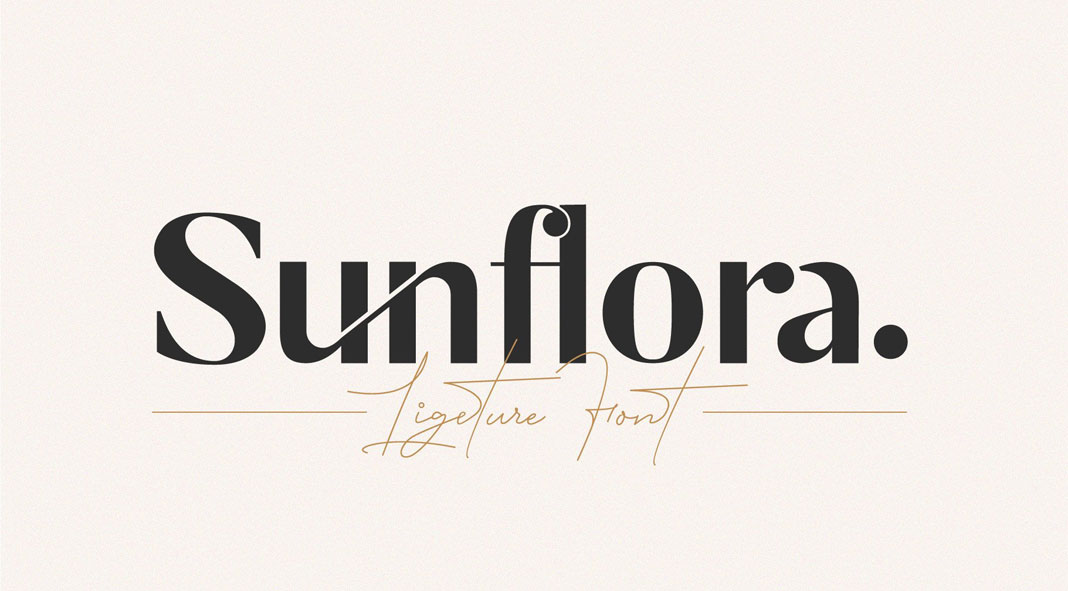
Sunflora, an elegant font that uses unique ligatures to smoothly link letters.
Oh boy, just look at this beauty! Designed and published in 2019 by New Tropical Design Studio, the Sunflora font is the right choice for logotypes, monograms, quotes, eye-catching titles, and many more typographic applications. Thanks to its 20 unique ligatures, this typeface adds an elegant touch to your work. Ligatures can be deactivated optionally if needed for body texts. In addition, the Sunflora font comes with a set of numbers and punctuation. You can get this stunning typeface as OpenType font at Creative Market. To learn more, just click on the following link or have a look at the images below.